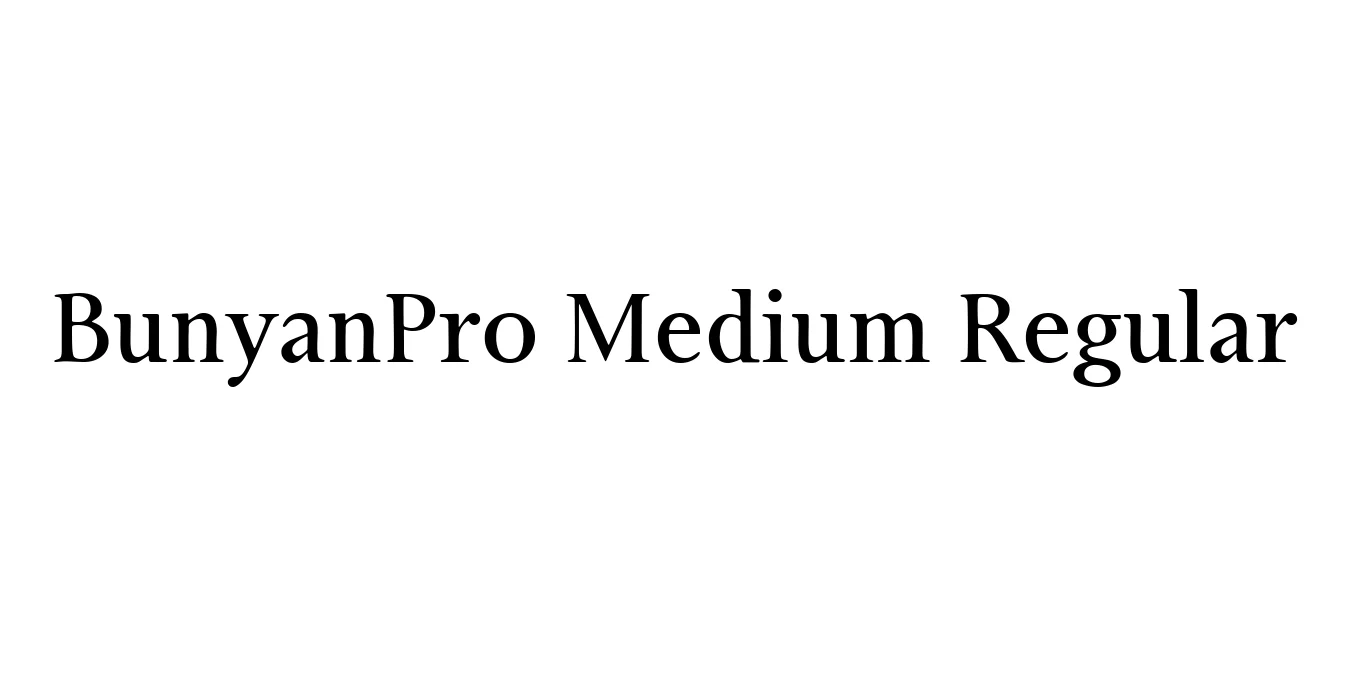
BunyanPro Medium Regular
Designed by Patrick Griffin and Bill Troop
Bunyan Pro is a comprehensive revival and expansion of the last face designed by Eric Gill for the Bunyan Press in 1934. Originally created for high-quality book printing, the typeface was later released by Linotype under the name Pilgrim. This digital iteration, meticulously developed by Patrick Griffin and Bill Troop of Canada Type, restores the original's robust yet elegant characteristics while introducing a wide range of modern OpenType features including small caps and multiple figure sets.
The Medium Regular weight provides a perfect equilibrium for long-form reading, featuring distinct serifs and a generous x-height that ensures exceptional clarity at smaller point sizes. It is widely celebrated in the design community for its literary aesthetic and scholarly feel, making it a premier choice for editorial layouts, luxury branding, and sophisticated print projects that require a sense of historical authority and timeless elegance.
BunyanPro Medium Regular Best Uses
Ideal for body text in novels and scholarly journals due to its high legibility and classic feel.
Perfect for high-end luxury brands that want to convey heritage, trust, and sophistication.
Excellent for magazine layouts, long-form articles, and print newsletters.